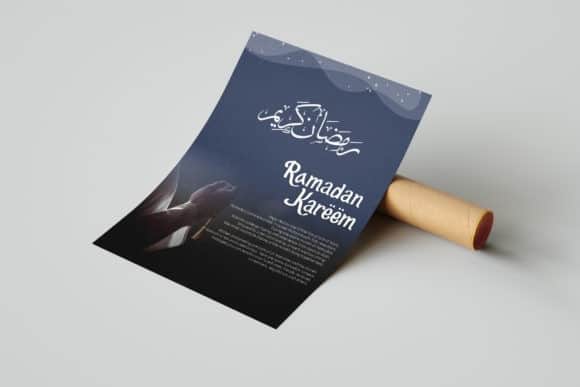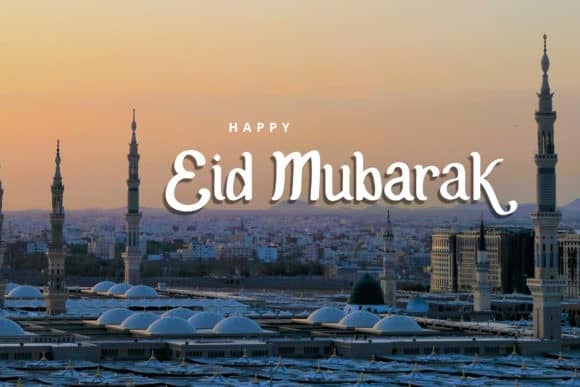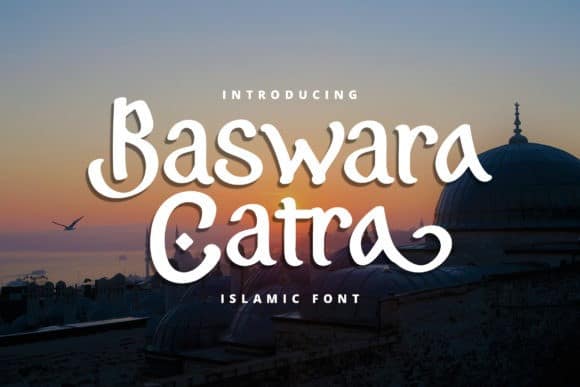
Introducing, Baswara Catra Display Font a fun display typeface with cheerful theme for your fun project. It’s designed and shared by InspiraType. This Font is a flowing and unique hand-drawn font. Fall in love with its incredibly versatile style and use it to create gorgeous wedding invitations, beautiful stationary art, eye-catching social media posts, and much more!